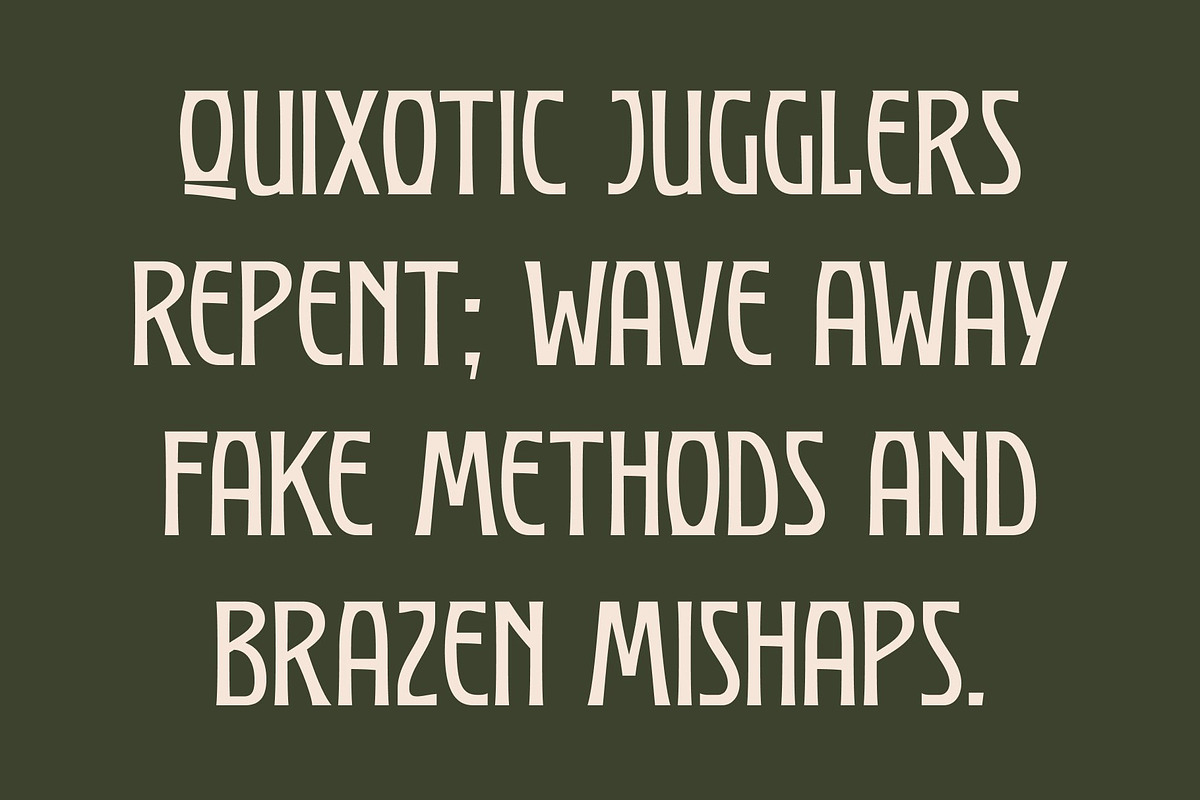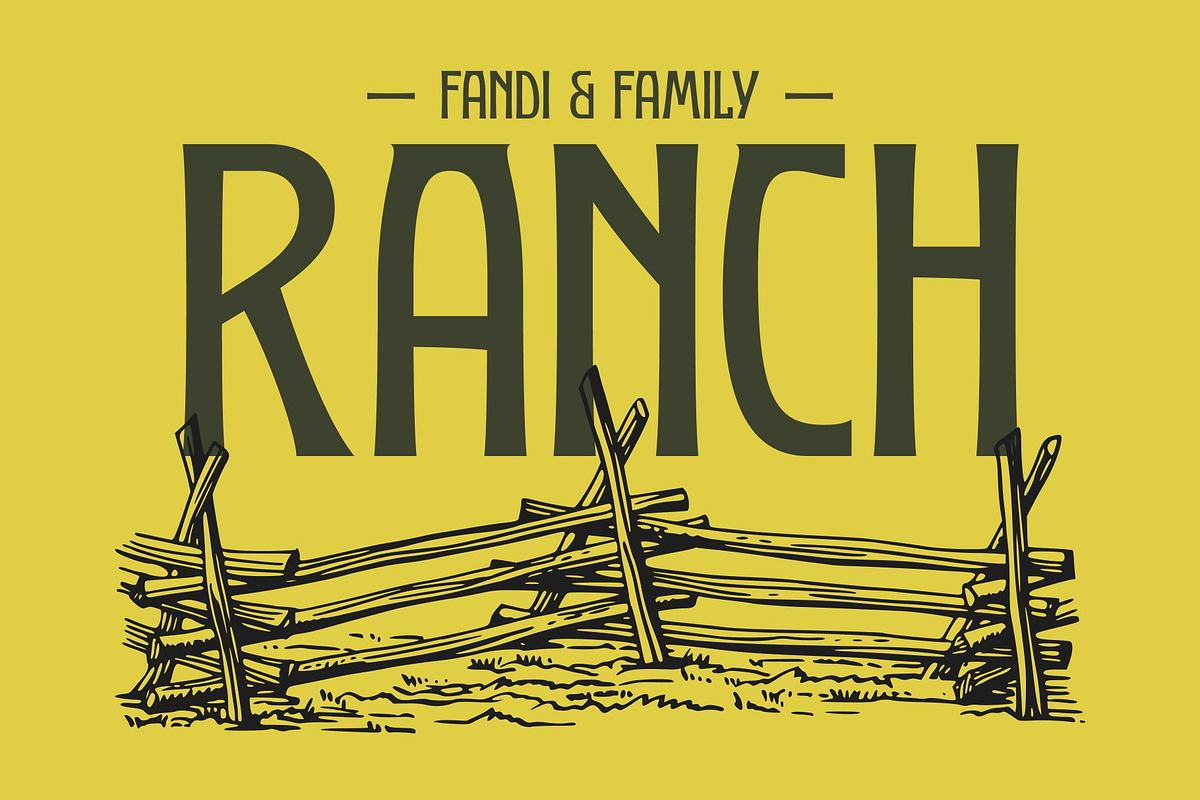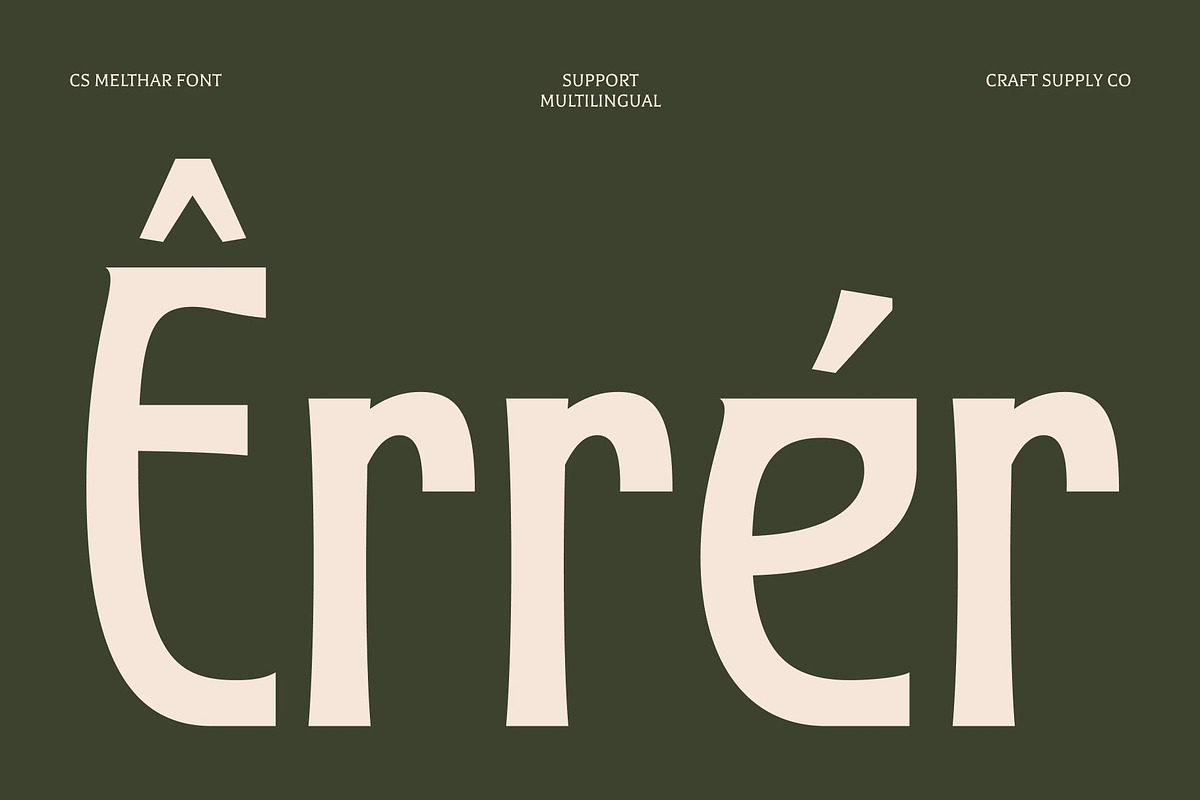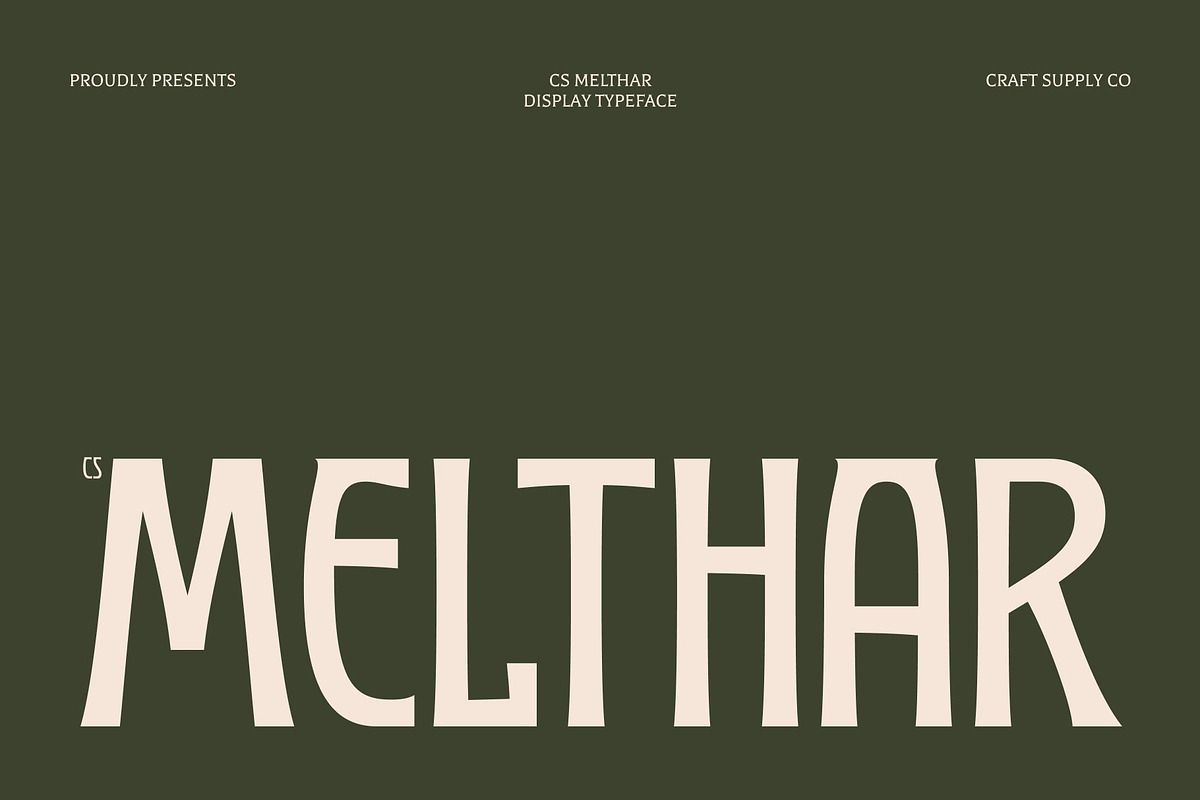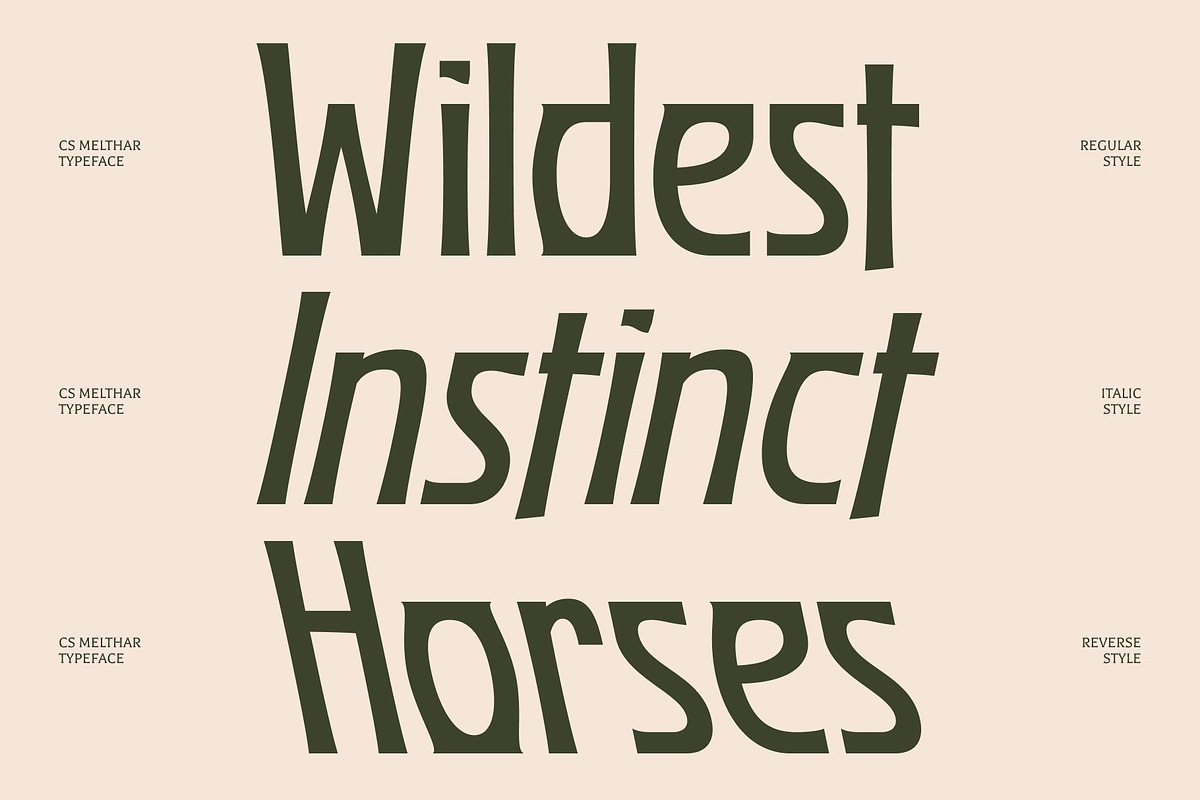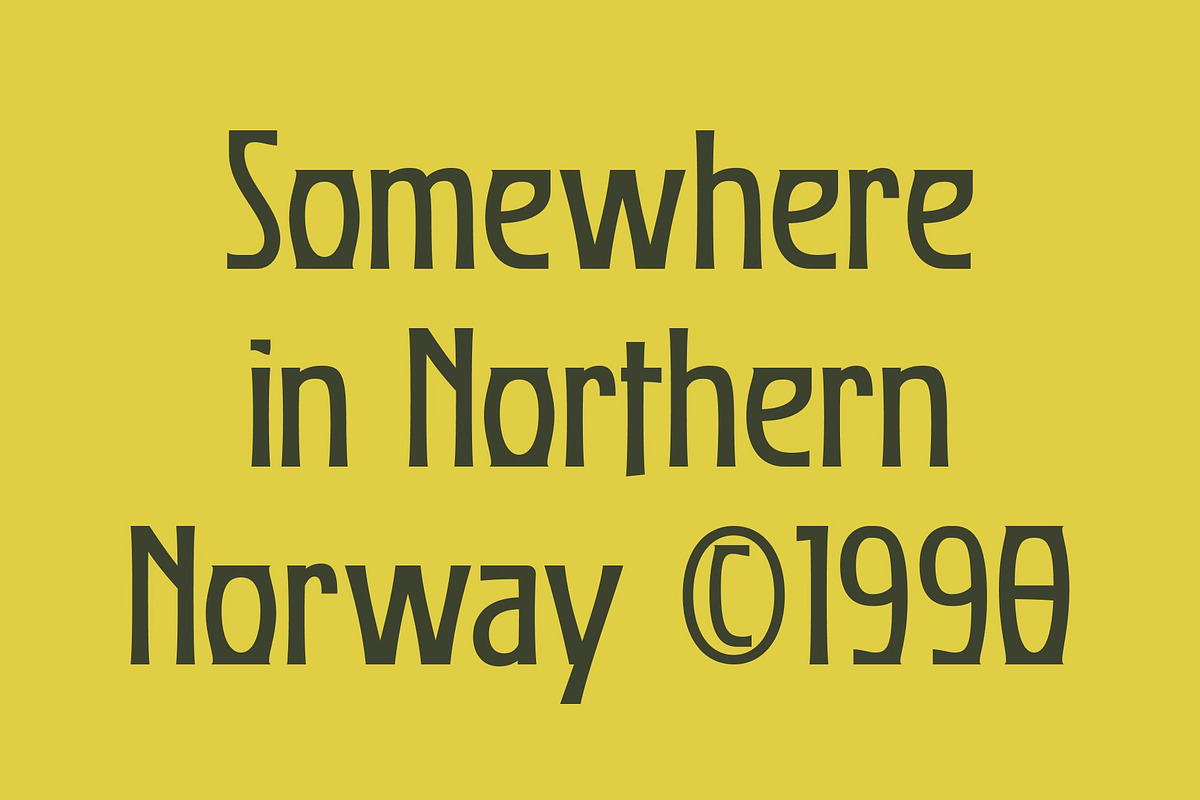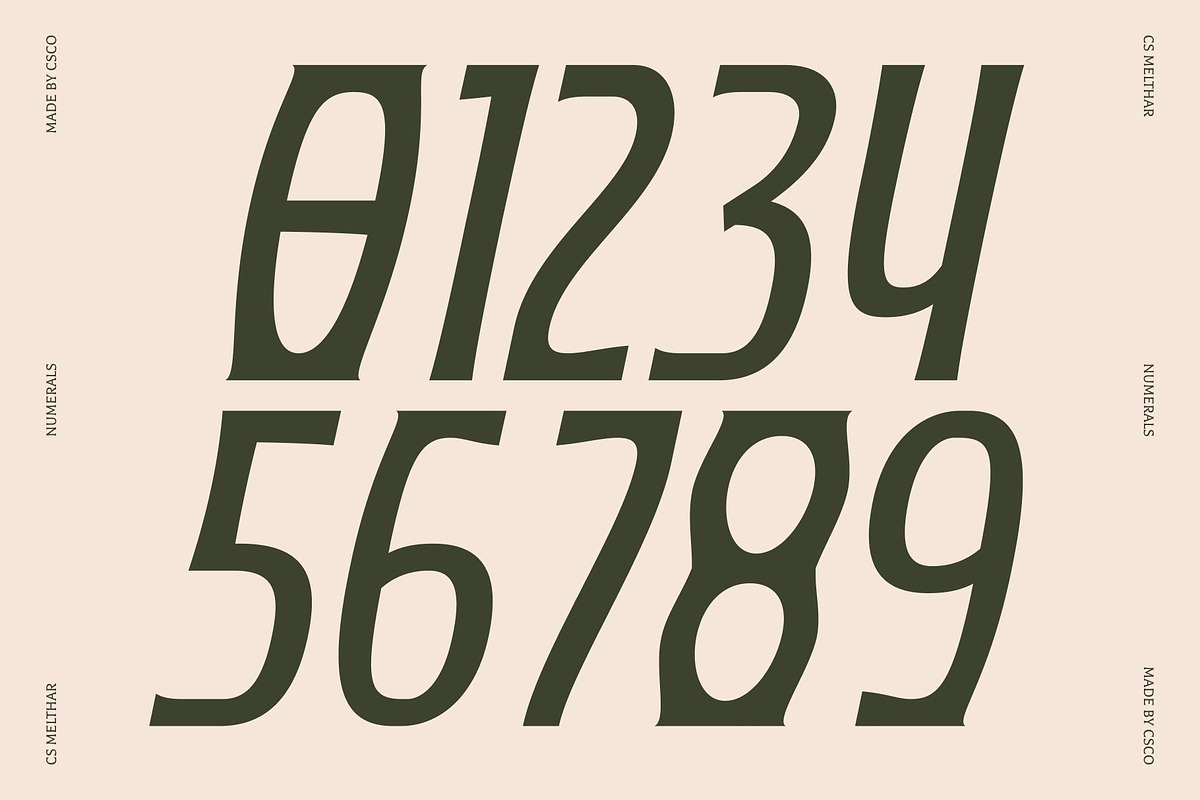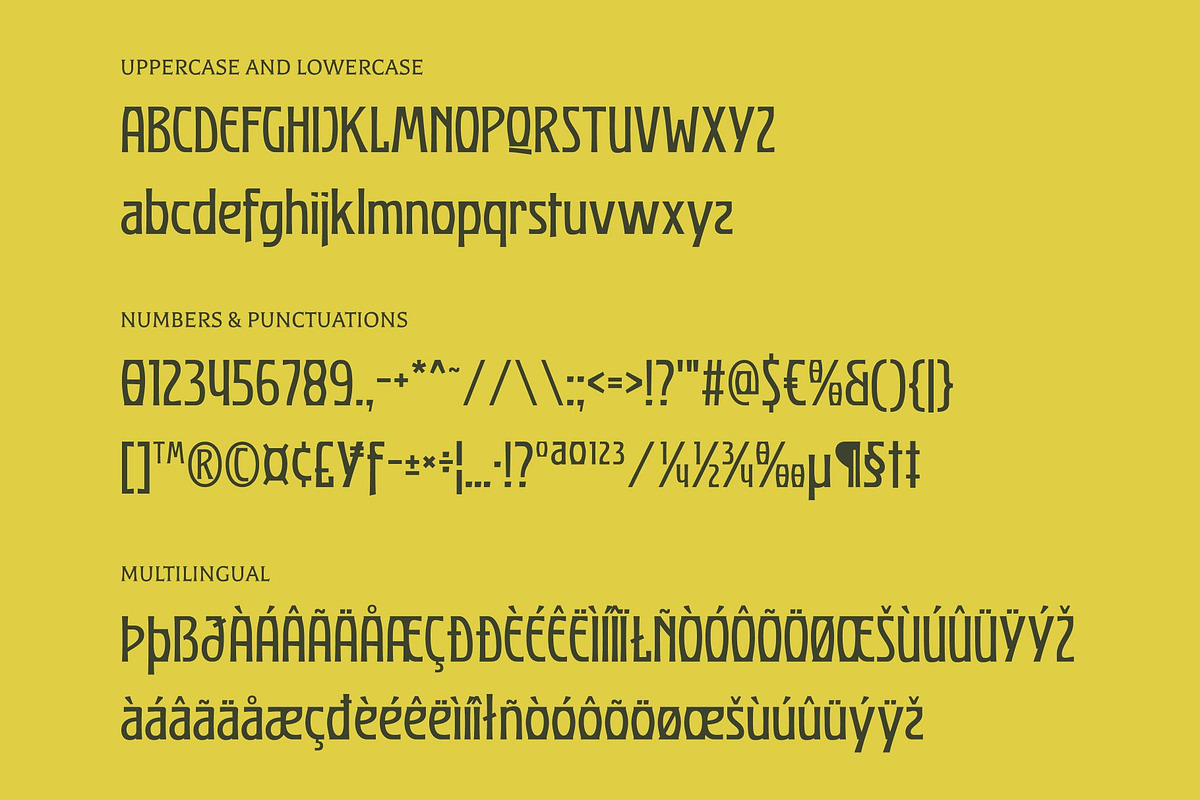
CS Melthar – Classic Display Font
CS Melthar – Decorative Display Font with Artistic Modern Flair
Modern Display Font with Decorative Elegance This is a modern display font that blends minimalist beauty with classic decorative charm. Designed to create an artistic and refined impression, this typeface brings together clean contemporary structure and ornamental detail, resulting in a look that feels both fresh and expressive. It is crafted for designers who want typography that instantly elevates visual storytelling.
Minimalism Meets Classic Ornament The letterforms balance simplicity with subtle decorative touches, creating a distinctive harmony between modern and classic aesthetics. Clean shapes provide clarity and readability, while refined details introduce personality and artistic depth. This thoughtful combination gives every word a graceful and eye-catching presence.
Artistic Character with Fresh Appeal This font adds a creative and decorative vibe to any layout. Its expressive design encourages experimentation and helps compositions feel more dynamic and visually engaging. Whether used in large display settings or bold typographic statements, the font delivers a fresh and detailed aesthetic that captures attention effortlessly.
Perfect for Creative Titles and Branding From logos and headlines to contemporary design projects, this font offers versatility with strong visual impact. Its decorative elegance and modern clarity make it ideal for branding, poster design, creative campaigns, and artistic layouts that aim to feel stylish, distinctive, and memorable.
CS Melthar Regular
CS Melthar Italic
CS Melthar Reverse Italic